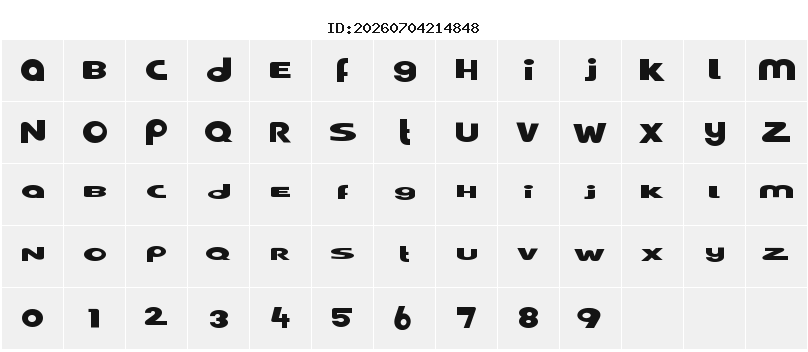
Dooper Whooper Preview
• Font Name: Dooper Whooper
• Font ID: Dooper Whooper:Version 1.00
• Full Font Name: Dooper Whooper
• Version: Version 1.00 October 23, 2016, initial release
• PostScript Name: DooperWhooper
• Designer: Dan P. Lyons
About Dooper Whooper.ttf
Dooper Whooper.ttf is a modern, elegant sans-serif font designed for ultimate readability and visual harmony. Perfect for branding, headlines, web design, and print materials.